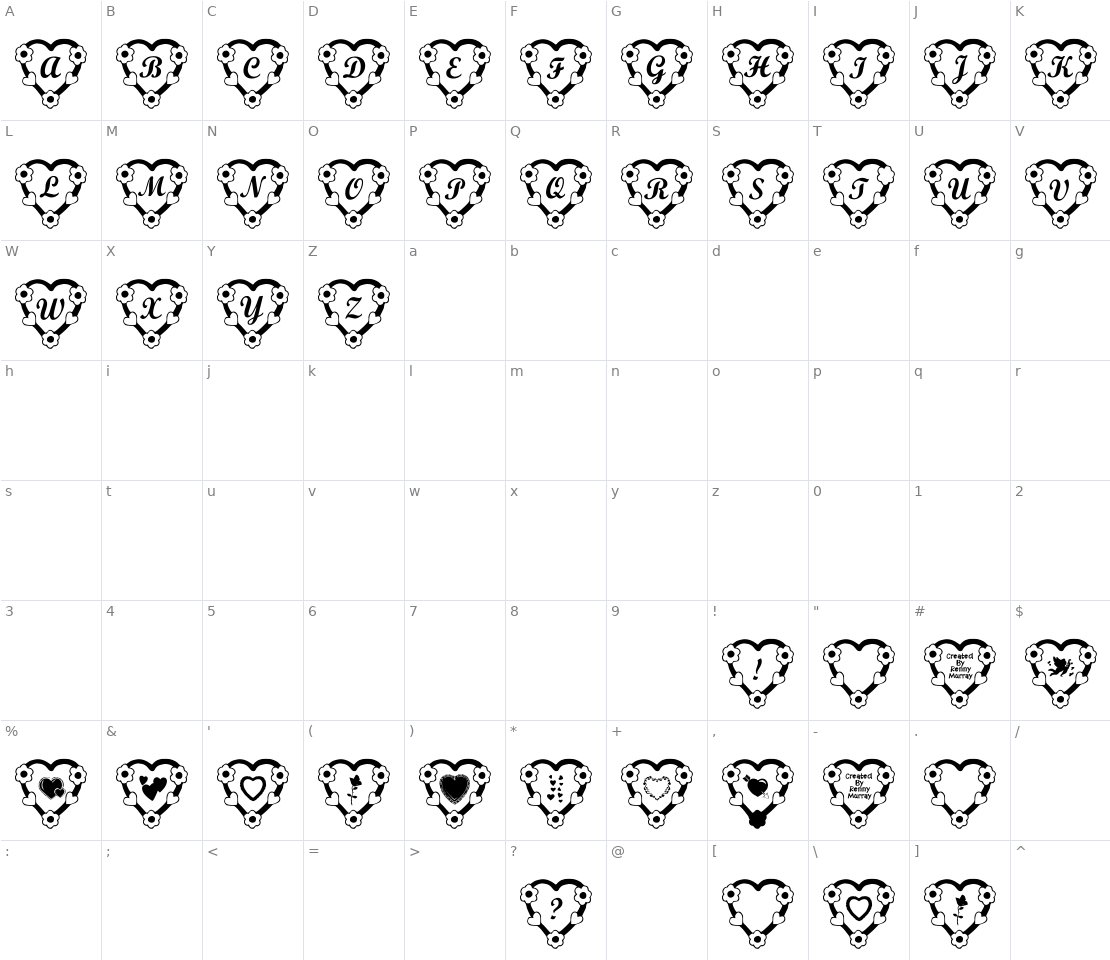
RMFlwrHt
RMFlwrHt is a decorative ornaments font by Renny Murray, featuring letterforms adorned with hearts and flowers in a romantic, Valentine-ready style. Each character is wrapped in delicate floral and heart motifs, giving it a handcrafted, sentimental quality. Built for invitations, greeting cards, monograms, and anywhere love-themed ornamentation needs to do the talking.